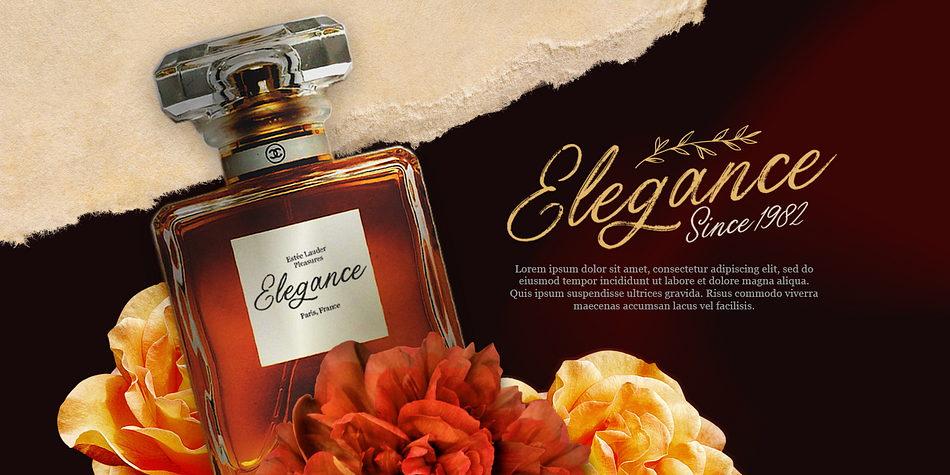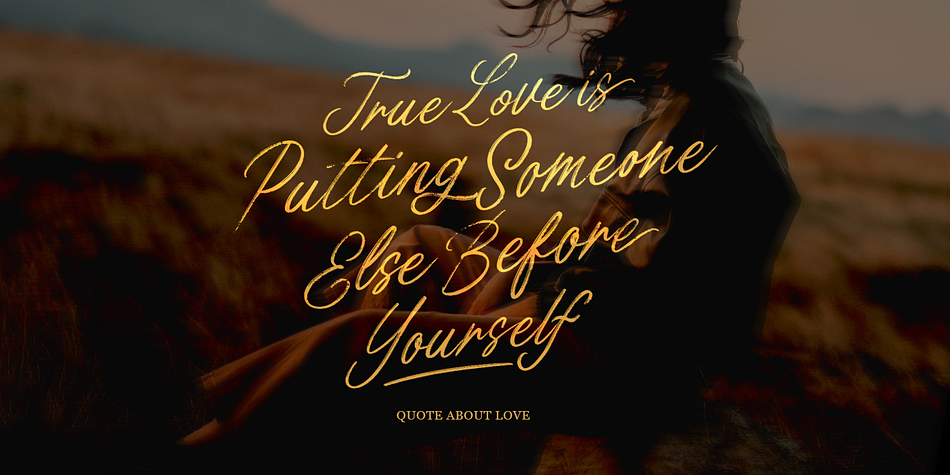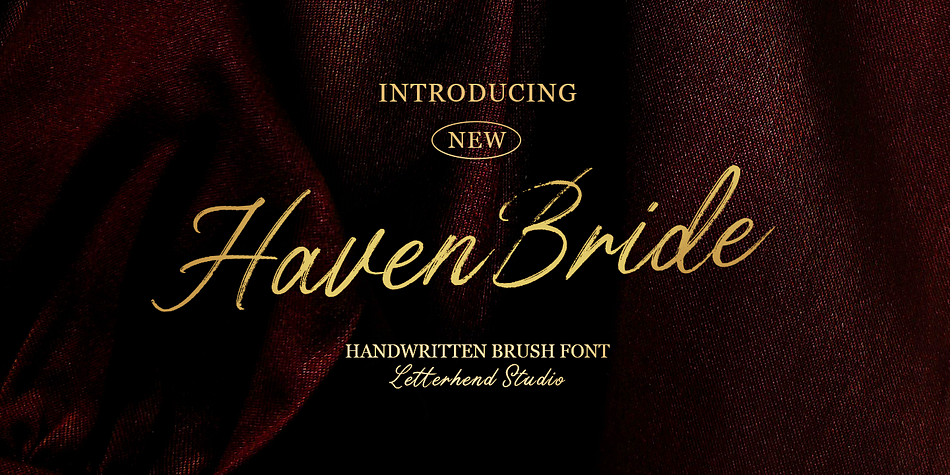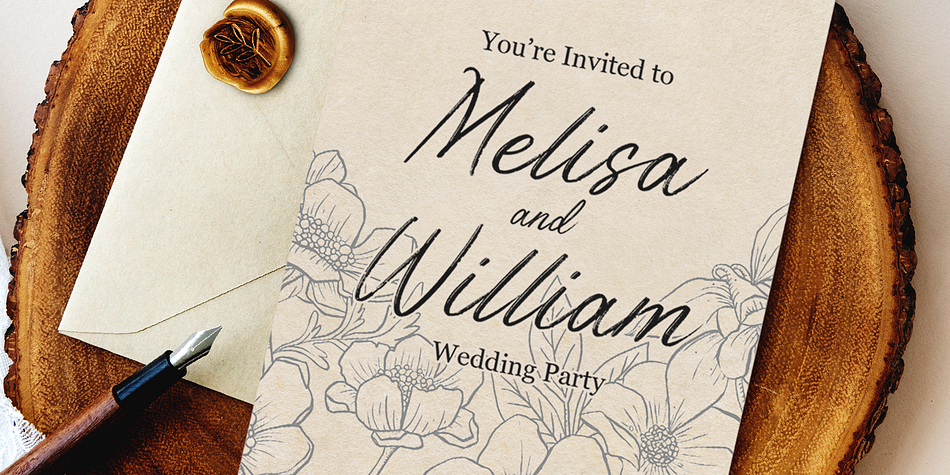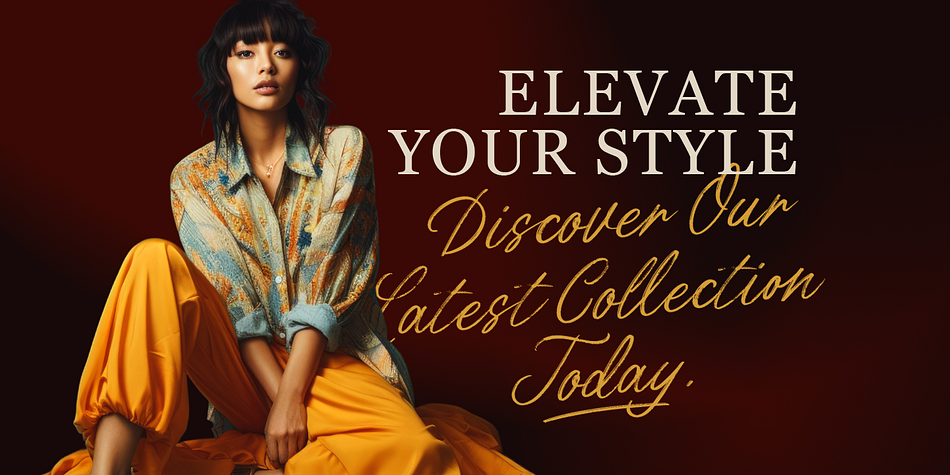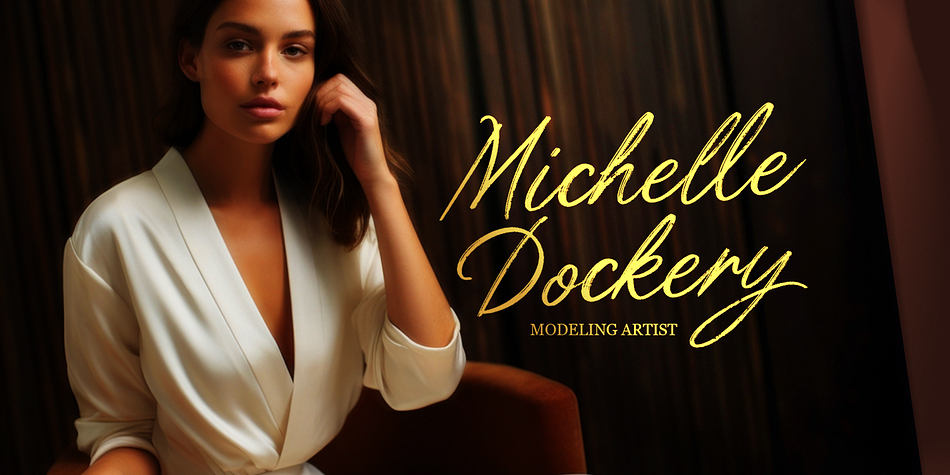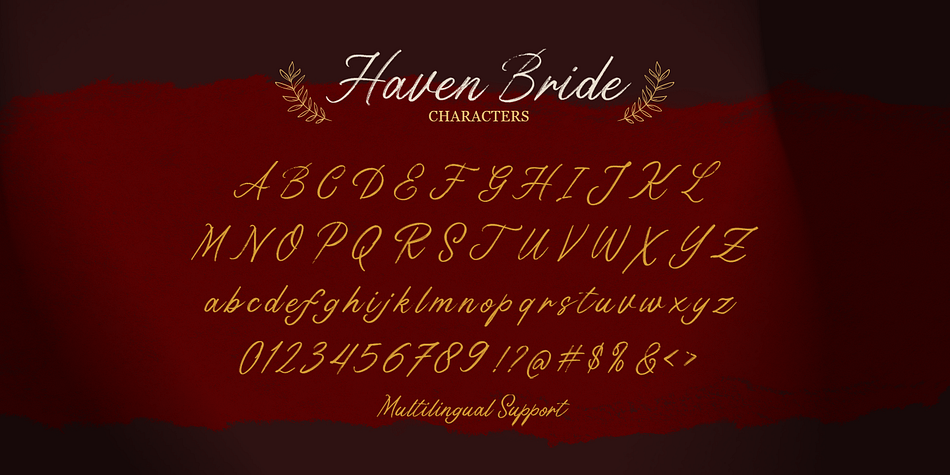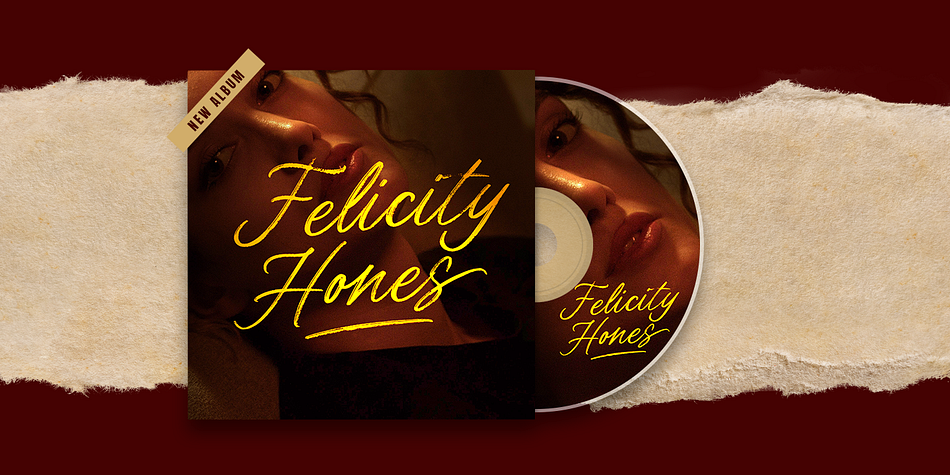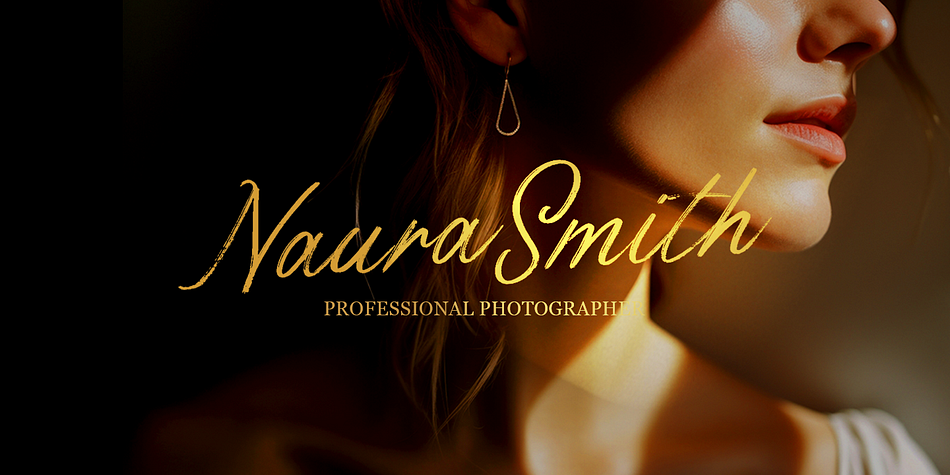
Haven Bride
Designed by Hendry Juanda, Haven Bride is a brush script and modern calligraphy font family published by Letterhend Studio.
Haven Bride is the beautiful brush  script font that perfectly captures the casual of a handwritten. With its natural feel and casual, chic style, it’s the perfect choice for branding, logos, and the other various formal forms such as invitations, labels, logos, magazines, books, greeting / wedding cards, packaging, fashion, make up, stationery, novels, labels or any type of advertising purpose where a personal touch is needed.
- Alternates & Ligatures
Styles Brush Script, Modern Calligraphy